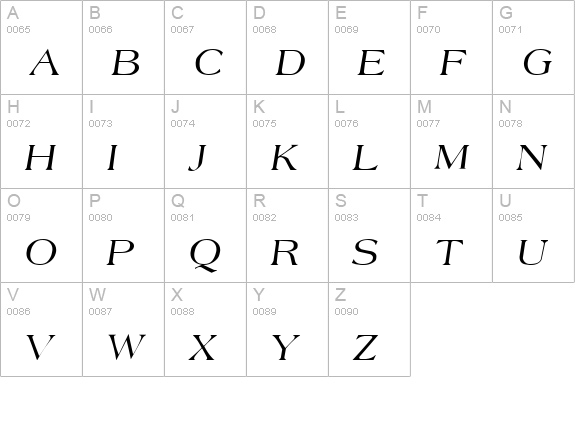
Amphion Italic is a distinctive, italic variant in the Amphion typeface family \xE2\x80\x94 well suited to design and typography projects.
Amphion Italic font exudes elegance and sophistication with its sleek and stylish design. The flowing curves and unique serifs of this typeface make it perfect for adding a touch of class to any project. Whether you're designing a wedding invitation, creating a logo, or crafting a magazine layout, Amphion Italic is sure to make a statement. What's even better is that this exquisite font is available for free download at FontsMarket.com. Embrace the beauty of Amphion Italic and elevate your designs with its timeless appeal. Download this stunning font today and unleash your creativity like never before.